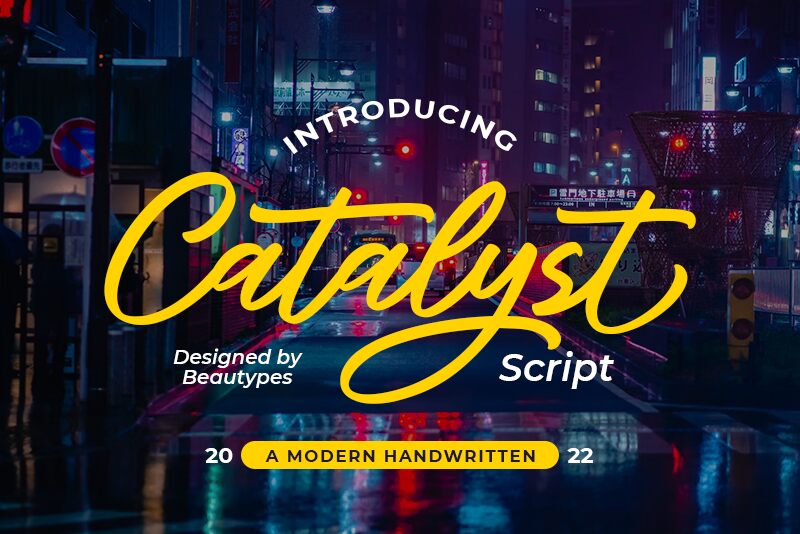
CatalystScript
Catalyst Script, a captivating handwritten font crafted by Beautypes, exudes a harmonious blend of elegance and sophistication. Its fluid, calligraphic strokes evoke a sense of artistry and personal expression, inviting the viewer to immerse themselves in its organic flow. The delicate, yet striking, character shapes captivate with their seamless connectivity, creating a cohesive and visually captivating typographic experience.
This versatile font lends itself effortlessly to a wide range of design applications, from high-end branding and editorial layouts to whimsical stationery and social media content. Its adaptability allows designers to seamlessly incorporate the Catalyst Script into projects that require a touch of refined, handcrafted charm, elevating the overall aesthetic and leaving a lasting impression on the audience.